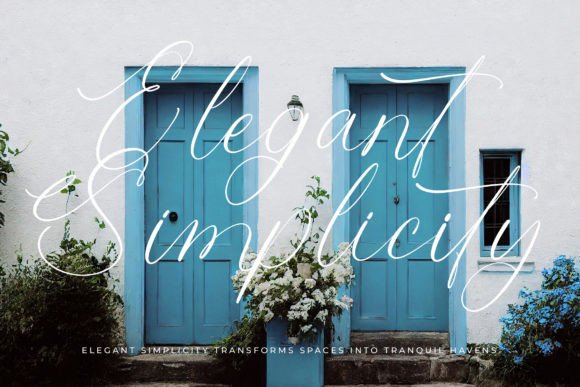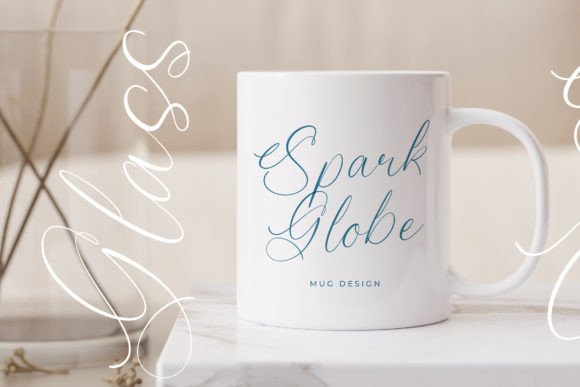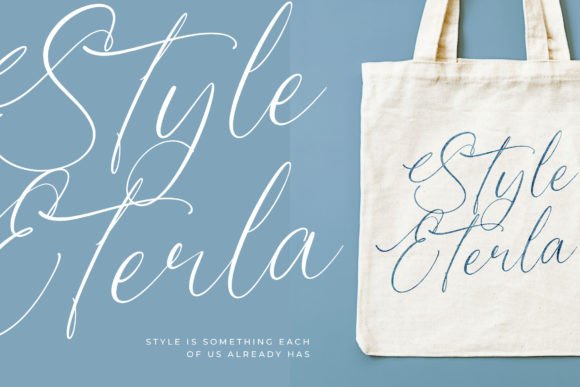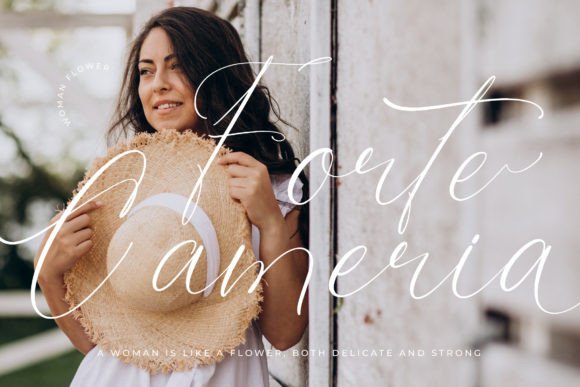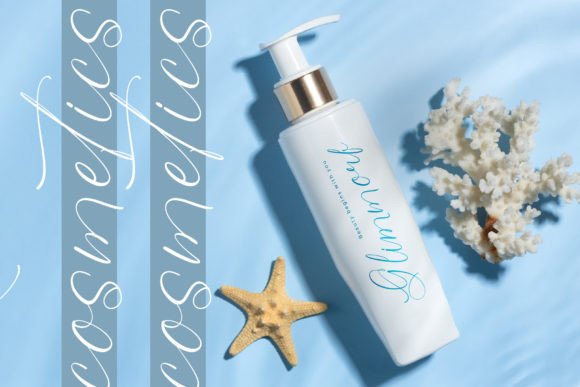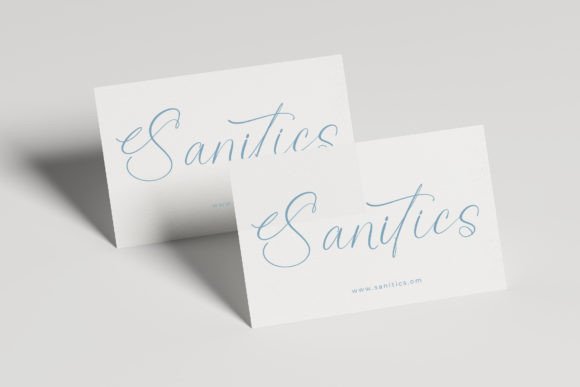
Grateful Sentora Font: Elevate Your Designs with Elegance and Charm
In the world of typography, a font can make all the difference in the aesthetic and feel of a design. For those seeking a touch of sophistication and warmth, the Grateful Sentora Font is an excellent choice. This stylish handwritten script font is designed to exude elegance and charm, making it perfect for a variety of creative projects.
The Characteristics of Grateful Sentora Font
Grateful Sentora is a beautifully crafted font that boasts fluid strokes and a natural flow, creating a captivating and sophisticated look. Its handwritten script style gives it a personal and intimate feel, making it ideal for adding a touch of warmth to any design. The font’s elegance and charm are undeniable, making it a versatile choice for various applications.
Whether you’re a designer, crafter, or simply someone who loves to create, Grateful Sentora Font is a fantastic addition to your typography collection. Its unique style and charm make it perfect for:
- Invitations: Add a touch of elegance to your wedding invitations, birthday party invites, or any other special occasion.
- Branding: Use Grateful Sentora Font to create a distinctive and memorable brand identity that stands out from the crowd.
- Social Media: Elevate your social media posts and stories with a font that exudes sophistication and style.
Why Choose Grateful Sentora Font?
With so many fonts available, why choose Grateful Sentora? Here are just a few reasons:
- Unique Style: Grateful Sentora Font has a distinctive and stylish look that will set your designs apart.
- Elegant and Charming: The font’s fluid strokes and natural flow create a captivating and sophisticated look.
- Versatile: Use Grateful Sentora Font for a variety of projects, from invitations and branding to social media and more.
- Easy to Read: Despite its elegant style, Grateful Sentora Font is easy to read, making it perfect for both digital and print designs.
Tips for Using Grateful Sentora Font
To get the most out of Grateful Sentora Font, here are a few tips:
- Pair with Other Fonts: Combine Grateful Sentora Font with other fonts to create a unique and visually appealing design.
- Experiment with Colors: Try out different colors and color combinations to find the perfect match for your design.
- Use for Headings and Titles: Grateful Sentora Font is perfect for headings and titles, adding a touch of elegance and sophistication to your design.
In conclusion, Grateful Sentora Font is a stylish and elegant handwritten script font that is perfect for adding a touch of sophistication and warmth to any design. Its fluid strokes and natural flow create a captivating and charming look, making it ideal for a variety of creative projects. Whether you’re a designer, crafter, or simply someone who loves to create, Grateful Sentora Font is a fantastic addition to your typography collection.